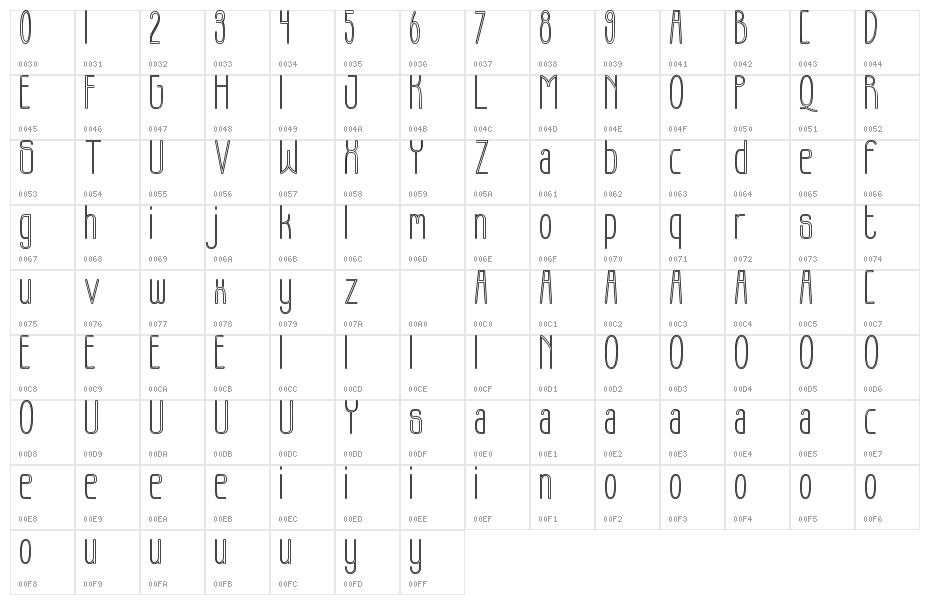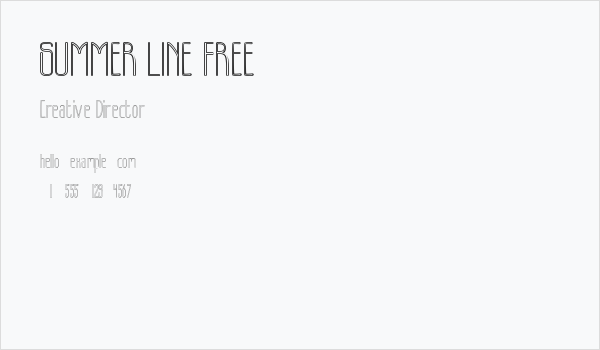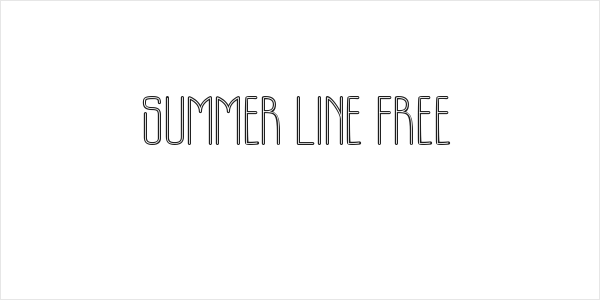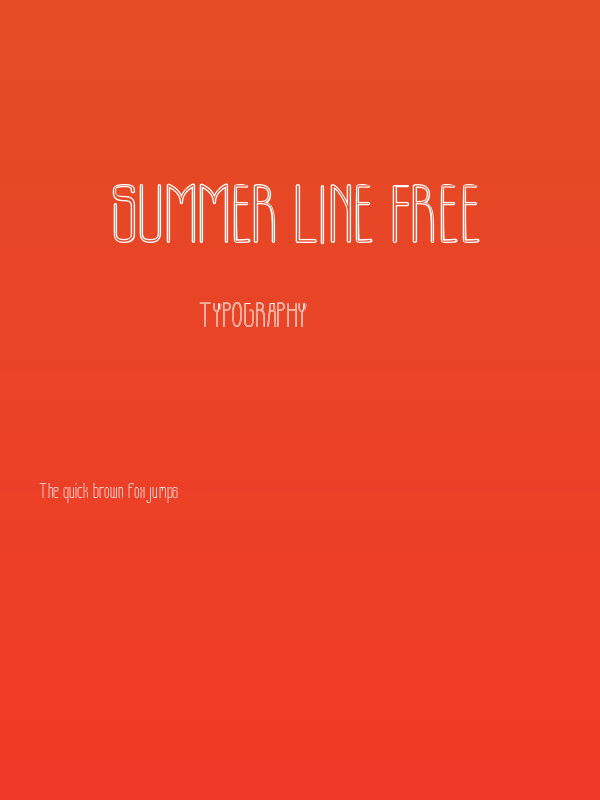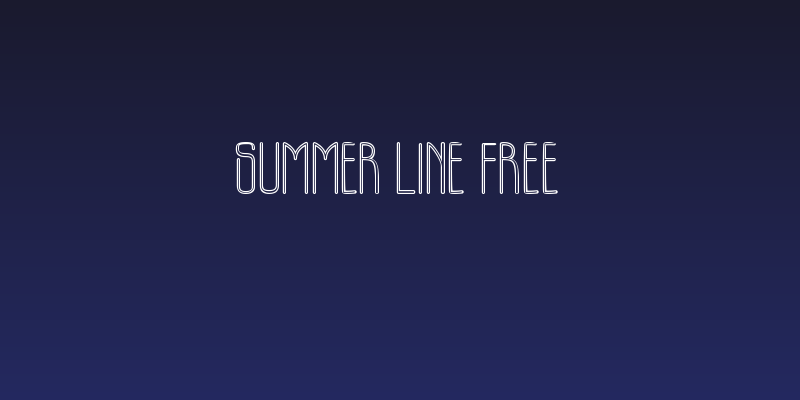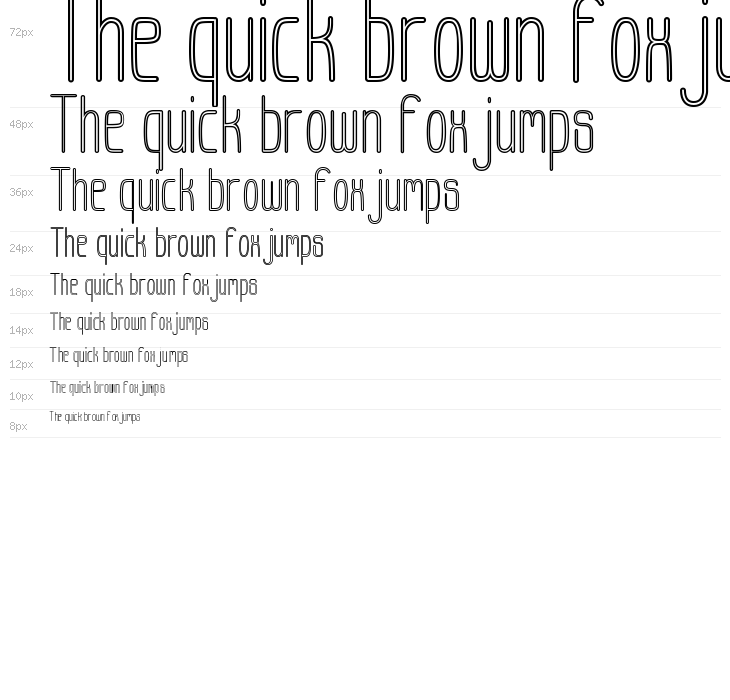
SUMMER LINE FREE Font
SUMMER LINE FREE Description
This font features a unique, modern design with a hollow, outlined style that gives it a light and airy appearance. The characters are tall and narrow, with consistent line thickness throughout, creating a clean and minimalistic look. The uppercase and lowercase letters maintain a uniform height, contributing to a cohesive visual flow. The numerals and special characters are designed to match the overall aesthetic, ensuring a harmonious appearance across all elements. This font's distinct style makes it suitable for creative and contemporary projects.
| Proposed Projects | Ideal for branding, posters, and modern design projects that require a unique and airy aesthetic. |